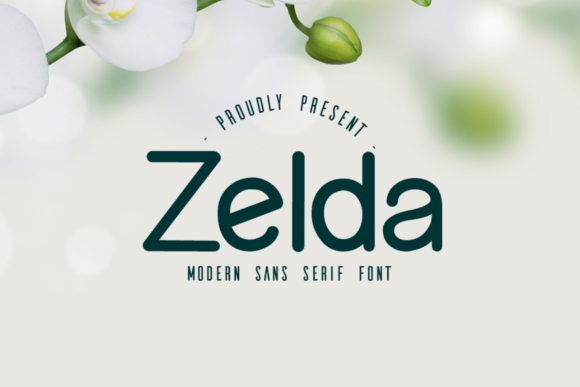
Behold, Zelda Font - a typographic masterpiece designed to enthrall your senses with its minimalist elegance and crisp sans serif charm. Crafted by the ingenious almazstd24, this font family is a testament to the boundless power of simplicity, offering an aesthetic that effortlessly blends the classic with the contemporary.
Immerse yourself in the world of Zelda Font and discover a font that effortlessly adapts to your creative whims. With its clean lines, open letterforms, and subtle character, it seamlessly complements a myriad of projects, from logos and branding to web design and social media graphics. Unleash your imagination and witness how Zelda Font transforms your designs into captivating visual narratives.
With its understated beauty, Zelda Font whispers sophistication and poise, inviting your audience to engage with your content in a meaningful way. Its understated presence allows your words and visuals to shine, making it an ideal choice for minimalist design enthusiasts. Whether you're creating marketing materials, crafting social media posts, or simply seeking a font that exudes professionalism, Zelda Font is your trusted companion.
Beyond its aesthetic appeal, Zelda Font boasts exceptional readability, ensuring your message is conveyed with clarity and impact. Its crisp edges and carefully crafted letterforms render beautifully across screens and print, guaranteeing your designs retain their integrity in any medium. Whether you're targeting a global audience or catering to a niche market, Zelda Font's universal appeal and readability make it the perfect choice for a diverse range of projects.
Join the ranks of discerning designers, typographers, and creatives who have discovered the allure of Zelda Font. Elevate your designs to new heights, captivate your audience with your messaging, and leave an enduring impression with every visual masterpiece you create. Experience the magic of Zelda Font today and unlock a world of creative possibilities that will redefine your design journey.